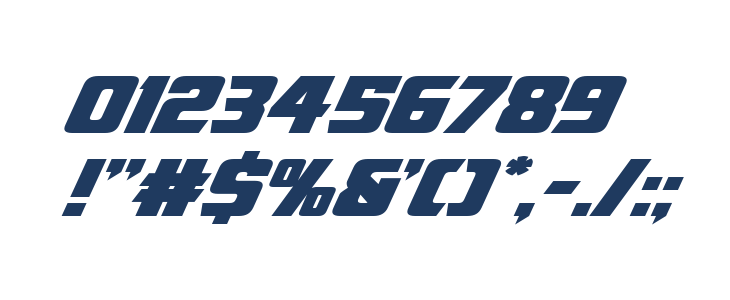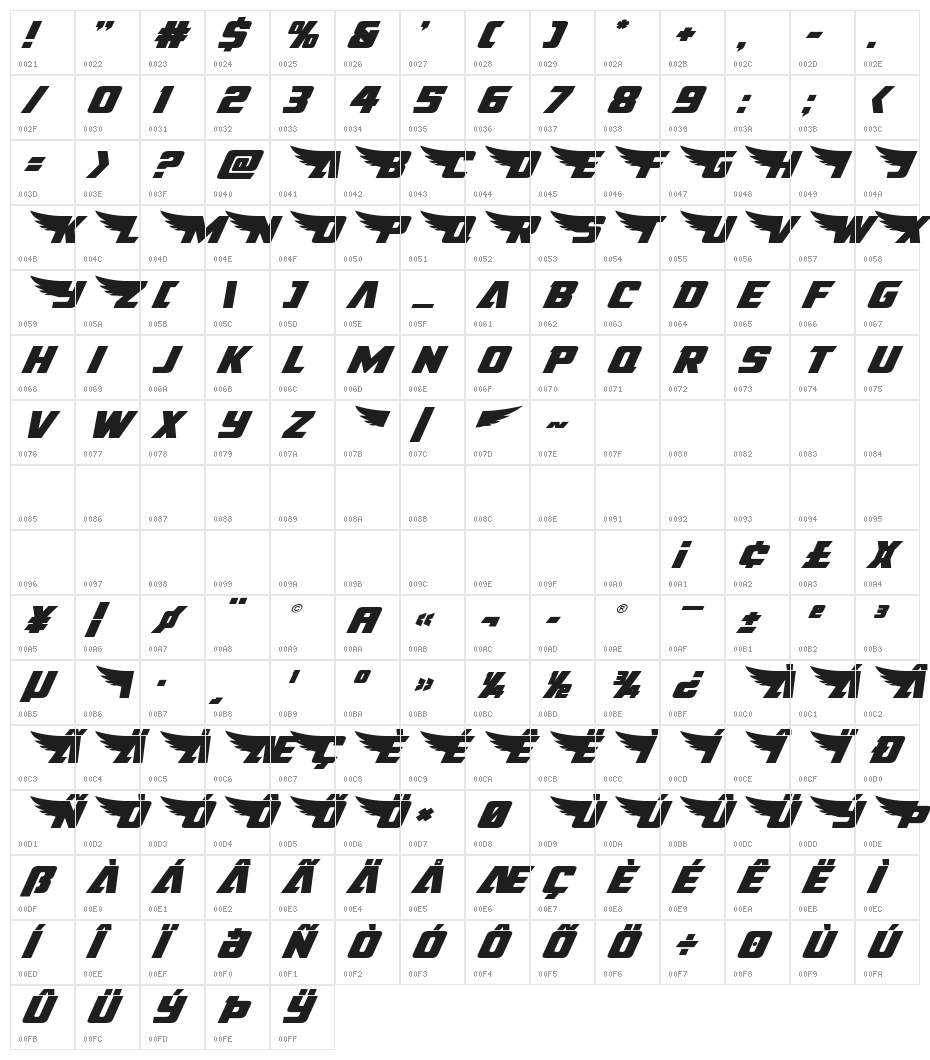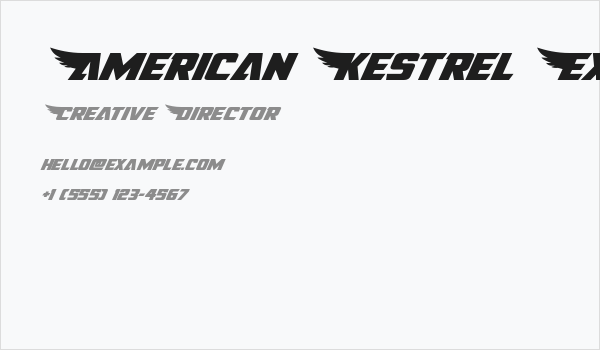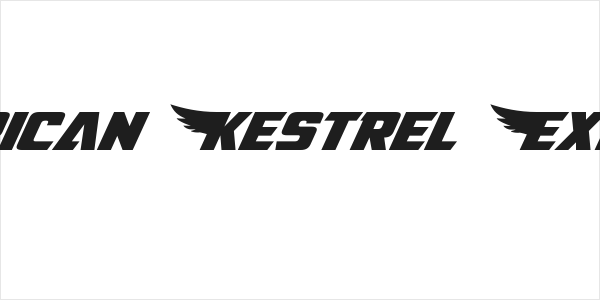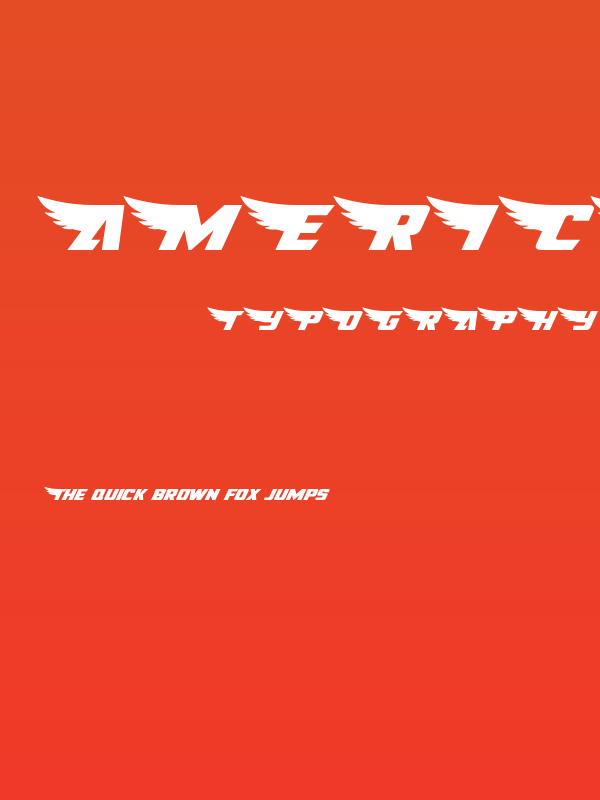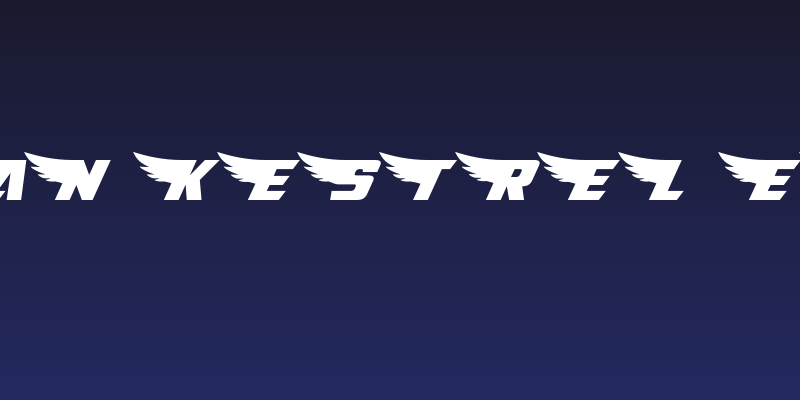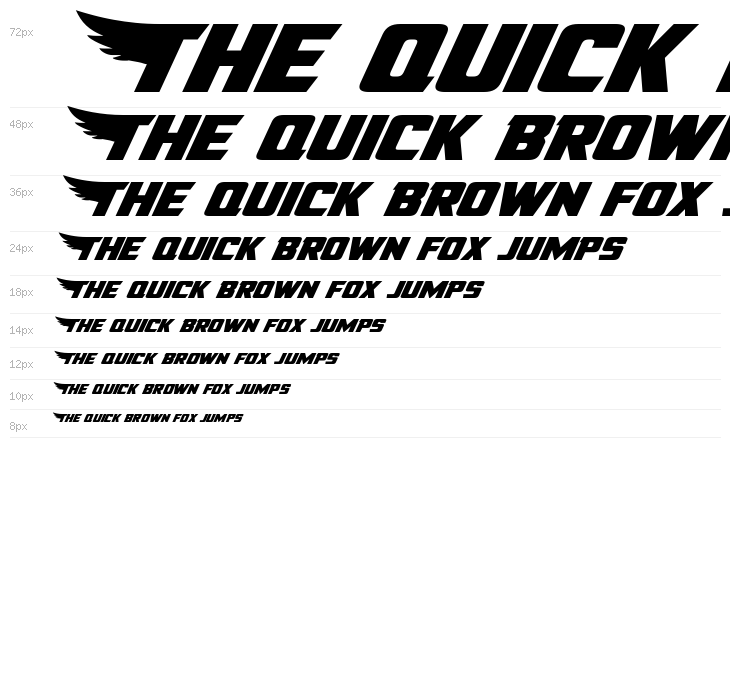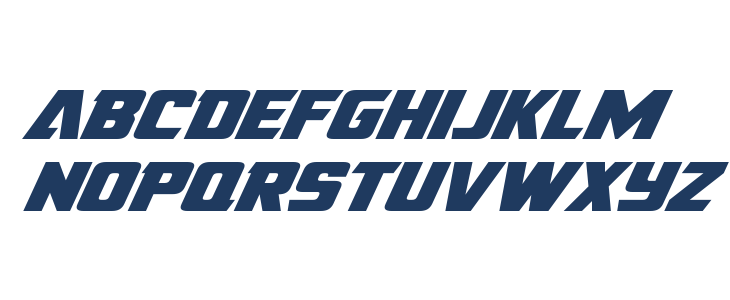
American Kestrel Expanded Font
American Kestrel Expanded Description
This font features a bold and dynamic design with a distinct sense of motion and energy. Each character is crafted with sharp, angular edges and a slight forward slant, giving it a sense of speed and modernity. The uppercase letters are particularly striking, with a unique wing-like extension on the left side, adding a decorative flair that suggests movement and flight. The numbers and special characters maintain this bold and energetic style, ensuring consistency across all glyphs. The font's expanded width and tight character spacing enhance its bold appearance, making it ideal for impactful headlines and attention-grabbing designs.
| Proposed Projects | Ideal for sports branding, automotive designs, dynamic posters, and any project needing a sense of speed and energy. |